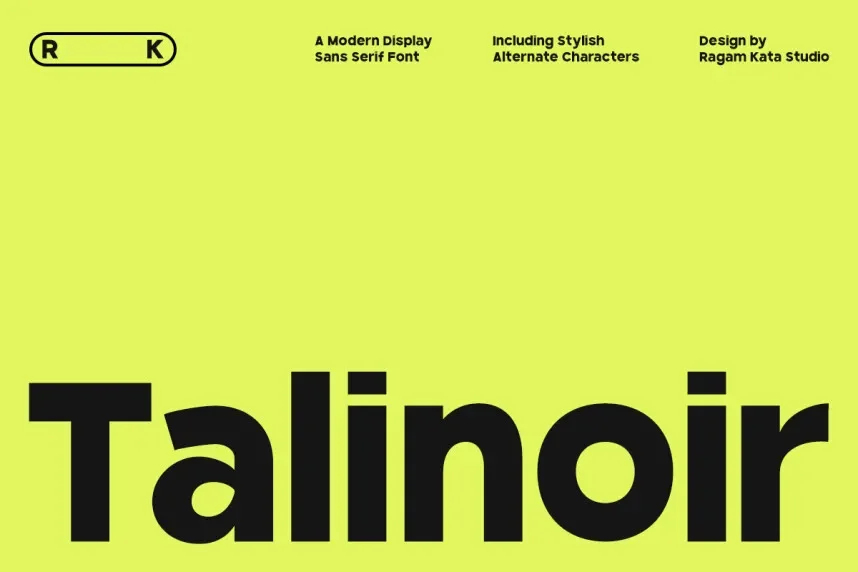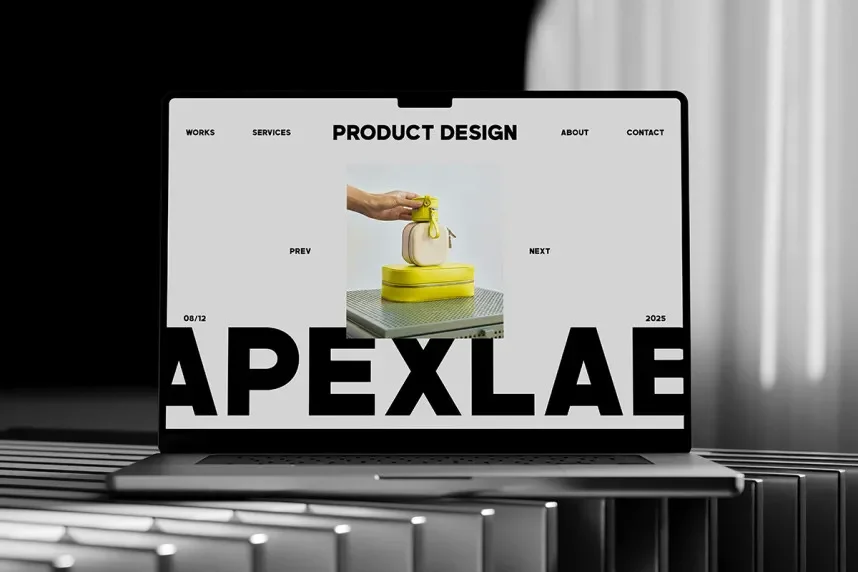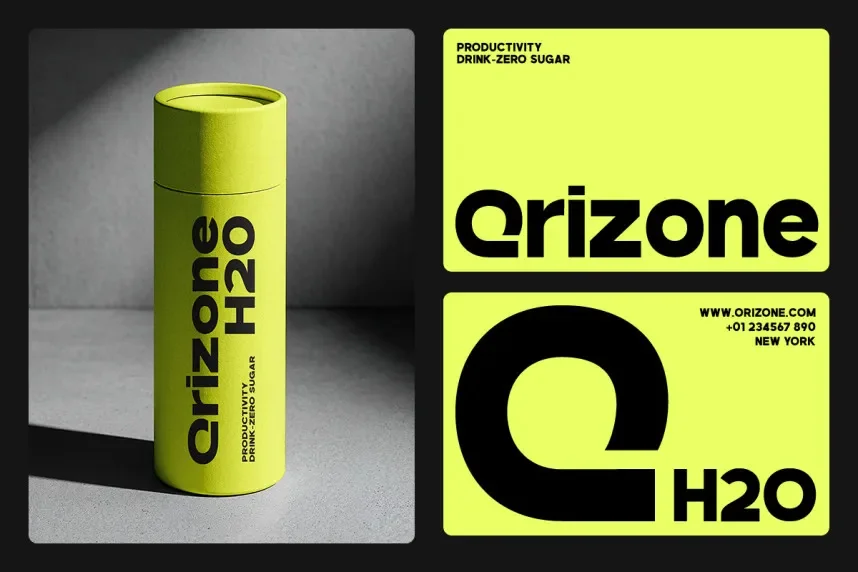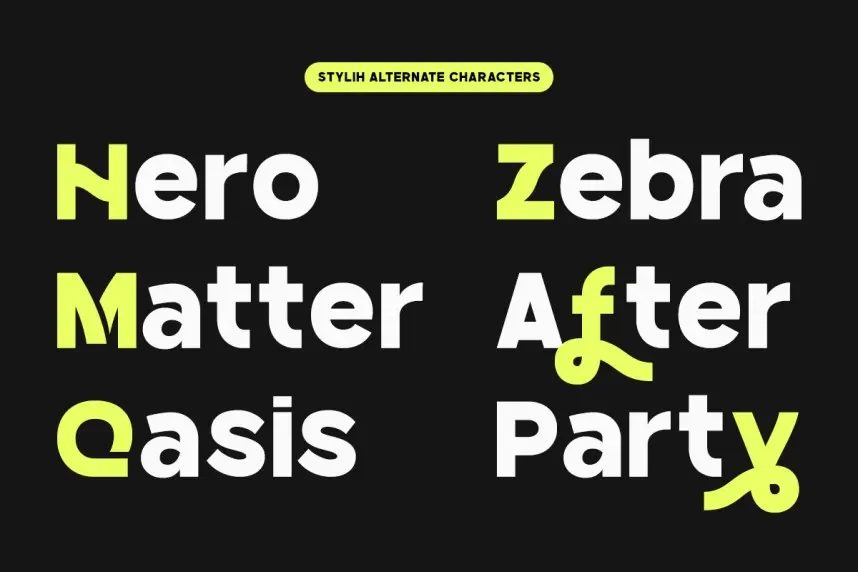
Talinoir Font is a sans-serif typeface designed to address clarity and consistency challenges in branding, logos, and digital interfaces. Designers often require fonts that maintain readability across headings, website UI elements, and printed materials while supporting professional design layouts.
Talinoir features clean geometric letterforms with uniform stroke weights, open counters, and subtle rounded terminals. Its proportions allow for balanced spacing, making text legible in large displays or compact layouts. The modern minimal design ensures compatibility with diverse visual projects.